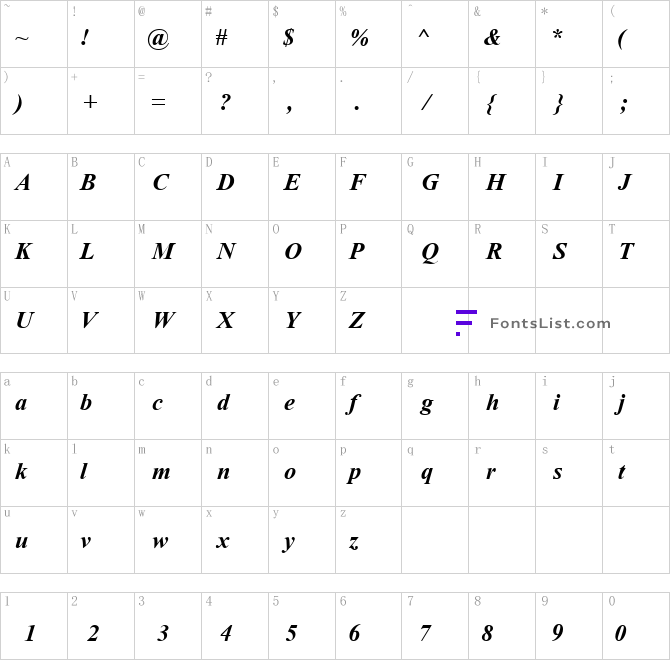
- Font Name:AngsanaDSE
- Subfamily:Bold Italic
- Subfamily:Windows 95 - AngsanaDSE Bold Italic
- Full Name:AngsanaDSE Bold Italic
- PostScript:AngsanaDSEBoldItalic
AngsanaDSE-Bold-Italic.ttf is a very beautiful artistic font, AngsanaDSE-Bold-Italic.ttf is widely used in the design and printing of various books and pictures,AngsanaDSE-Bold-Italic.ttf has a strong visual impact,AngsanaDSE-Bold-Italic.ttf is a commonly used font in newspapers, magazines and books, and is used in posters, e-commerce Poster design, store design, logo design, font design and other fields.AngsanaDSE-Bold-Italic.